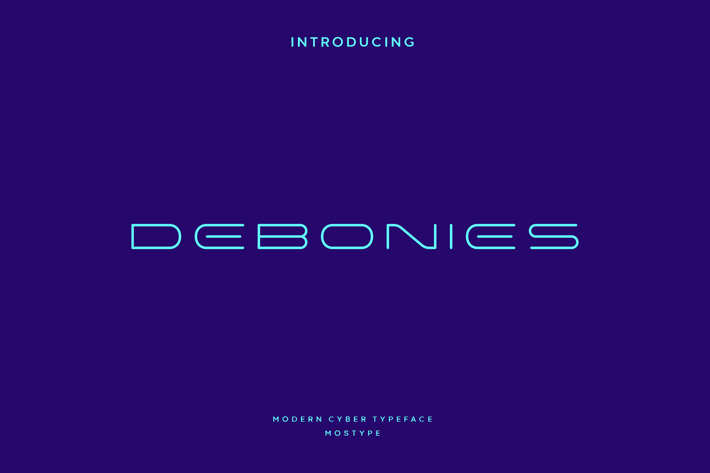
Debonies - Modern Cyber Typeface
Debonies comes with a fresh look, with a streamlined shape creating a futuristic hi-tech vibe and style. It looks great as a header and as text both. Use it in your projects in various fields like robots & androids, high tech, future, virtual reality, space, sports and many others. Hurry and grab it and use some spectacular creativity with this font, cheers!